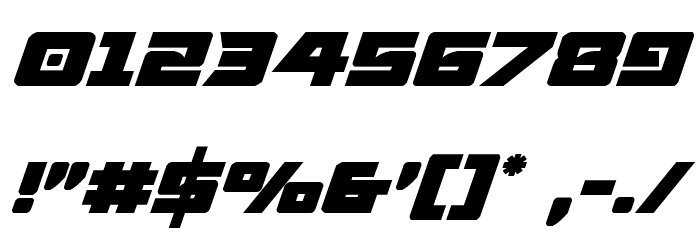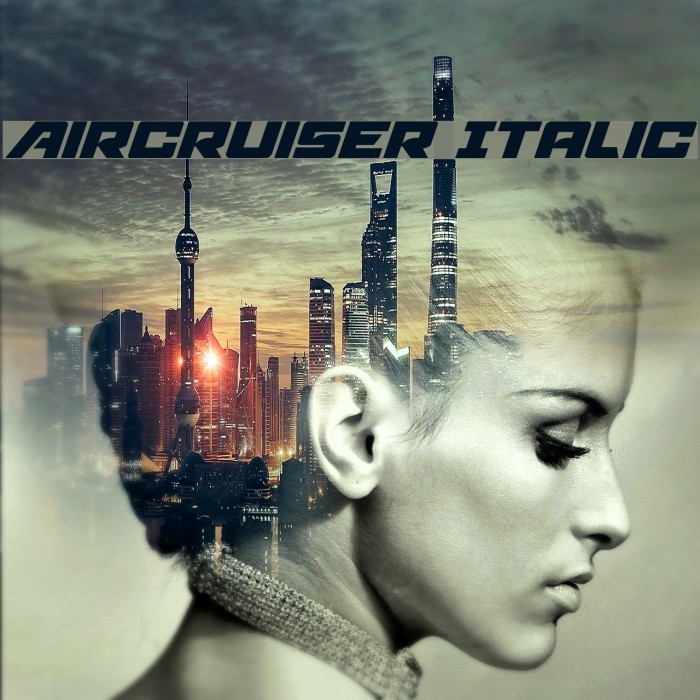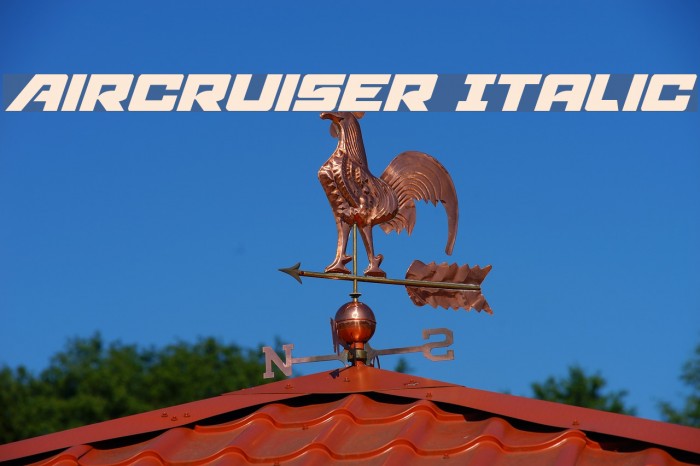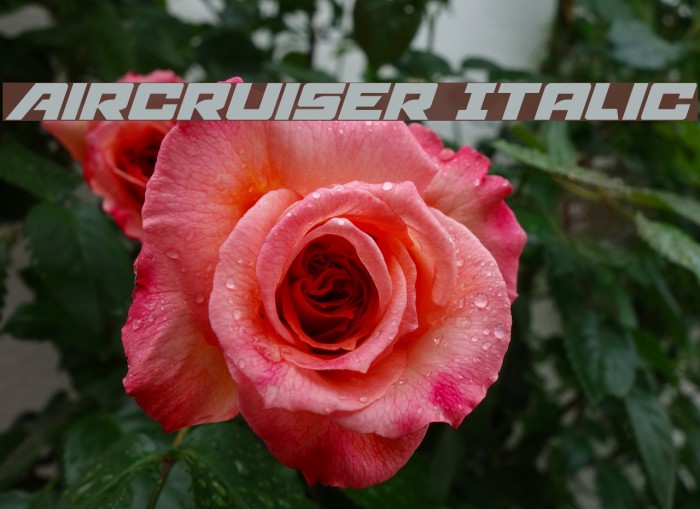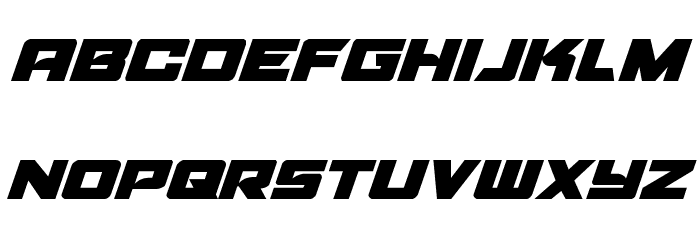
Aircruiser Italic Font
Aircruiser Italic Description
This font features a bold and dynamic style with a distinct italic slant, giving it a sense of motion and energy. The characters are designed with sharp, angular edges and a futuristic aesthetic, making it ideal for projects that require a modern and edgy look. The uppercase letters are particularly striking, with a strong presence that commands attention. The numbers and special characters maintain the same boldness and angularity, ensuring consistency across all text elements.
A bold, italic font with a futuristic and dynamic style from Uncategorized fonts.
- Proposed Projects: Ideal for use in sports branding, automotive designs, video game titles, and tech-related marketing materials.